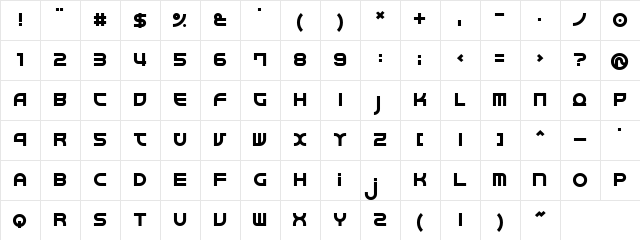
Junkmix Regular
Design Context for Junkmix Typeface
Junkmix takes a measured approach to typography — its balanced proportions and neutral character make it a reliable workhorse for both digital and print work.